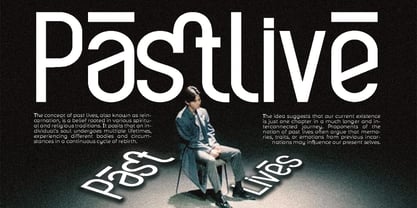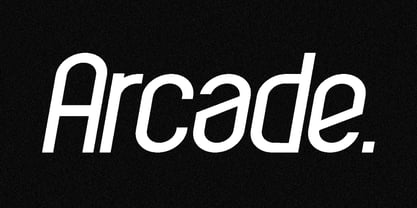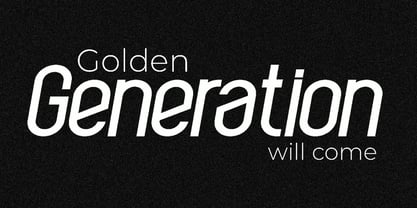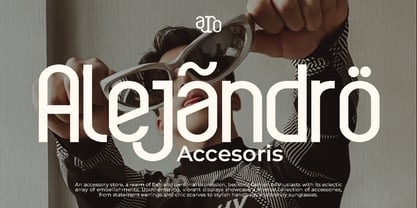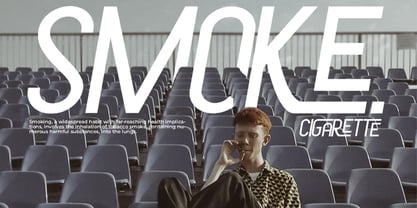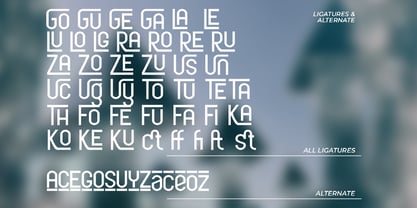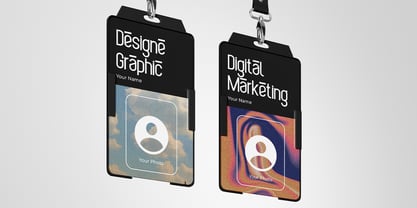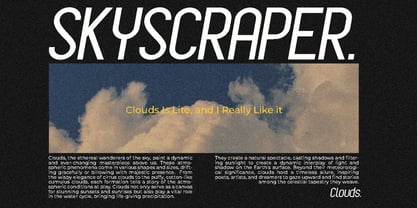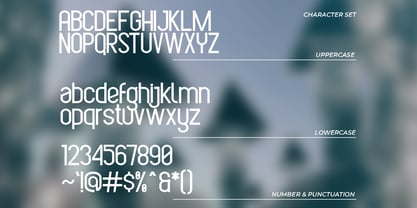
Futurique
by Catalystco Std
The Futurique Font Family was designed by and published by Catalystco Std. Futurique contains 1 styles. More about this family
Futurique is a modern futuristic sans serif font featuring unique geometric shapes, rounded corners, and a rich system of ligatures and alternate characters. It is designed to deliver a strong technology, sci-fi, and premium branding feel. Futurique blends clean modernism with futuristic flair. This typeface includes uppercase and lowercase alphabets, a comprehensive set of numerals, punctuation, stylistic alternates, ligatures, and multilingual support.
Foundry: Catalystco Std